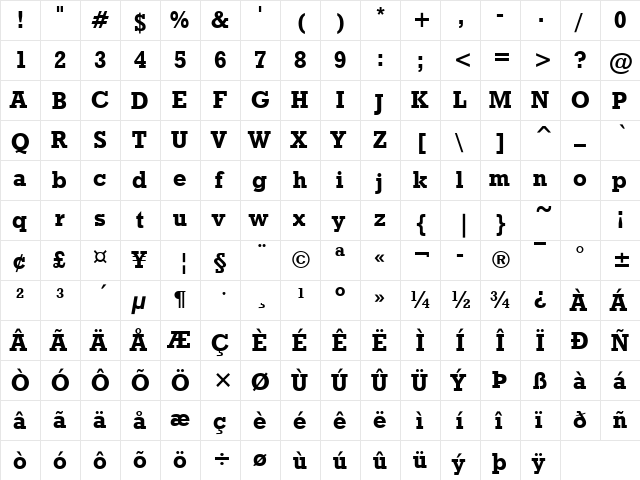
Granite Bold
Design Context for Granite Typeface
Granite is a composed and adaptable typeface that performs quietly and consistently across a wide range of design contexts. The heavy weight commands attention and anchors typographic hierarchies.
Pro Tip: Pair Granite with a font of contrasting weight or personality to build a more expressive typographic hierarchy.